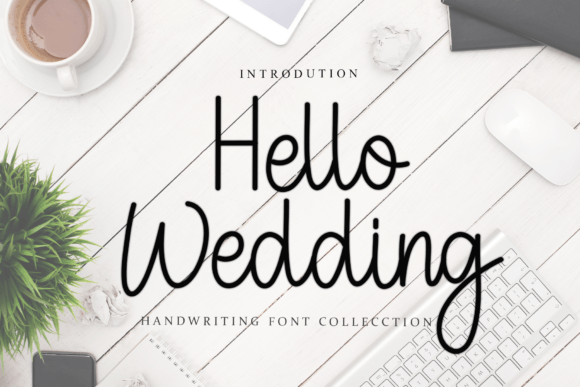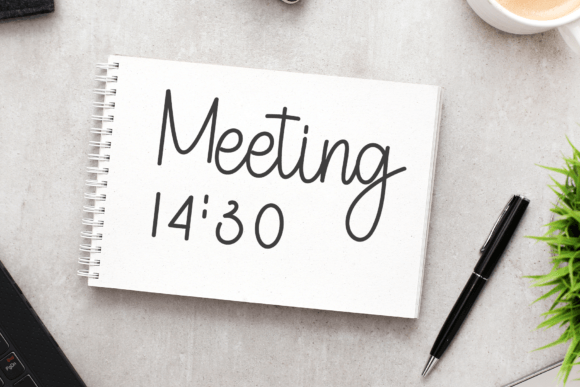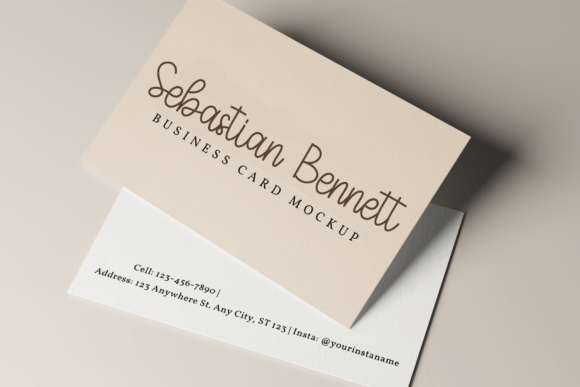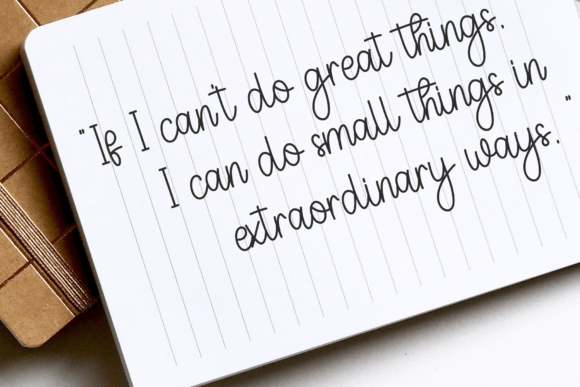
Hello Wedding Font
About the Hello Wedding Font
Welcome to the world of Hello Wedding Font, a typeface that will inspire your next great project. Hello Wedding is a fun and quirky handwriting font perfect for use on cheerful topics. Very suitable for children’s themed designs, especially when combined with bright colors.
Hello Wedding’s playful energy makes it ideal for wedding invitations, stationery, and other celebratory designs. It also works well for children’s books, branding for playful businesses, or packaging for fun products. However, its informal nature makes it less suitable for body text, long-form content, or projects requiring a high degree of professionalism. Avoid using it in UI contexts or where readability is paramount.
Pairing Hello Wedding with a clean sans-serif like Open Sans for body text creates a strong contrast, balancing the whimsical script with a legible and modern feel. Alternatively, a classic serif like Garamond could add a touch of sophistication, grounding the playful script and creating a more refined aesthetic. For a bolder look, consider pairing it with a geometric sans-serif font like Montserrat.
The font’s overall personality is undeniably cheerful and friendly, conveying a sense of warmth and approachability. This makes it perfect for projects that aim to evoke happiness and lightheartedness.
Hello Wedding Font Usage Examples
Hello Wedding Font Example